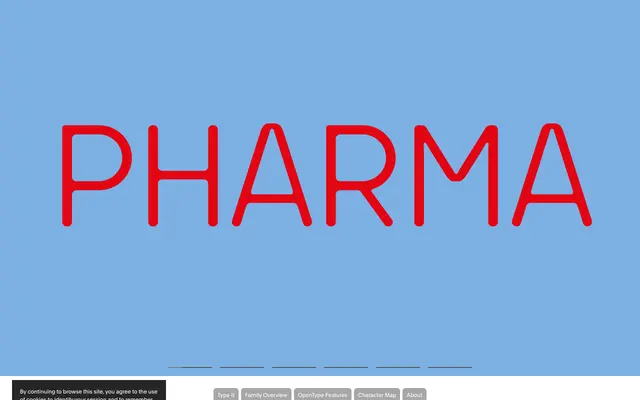
Pharma
Optimo · Julien Gaillardot · 2000
Julien Gaillardot's organic-technological sans, with rounded junctions and ink-trapped terminals adapted for print and screen.
A sans-serif by Julien Gaillardot, initiated in 2000, that explores the interconnection between organic and technological aesthetics. Condensed geometric letterforms mutate along multiple axes, with rounded forms appearing at junctions and terminals as soft joints or, in other instances, as ink traps. Two weights with italics in standard and Condensed widths give the family a pragmatic range tuned for both print and screen.
Optimo describes Pharma as a sans-serif inspired by the interconnection between organic and technological aesthetics, with rounded forms at junctions and terminals that act as either soft joints or ink traps.
Pharma Condensed